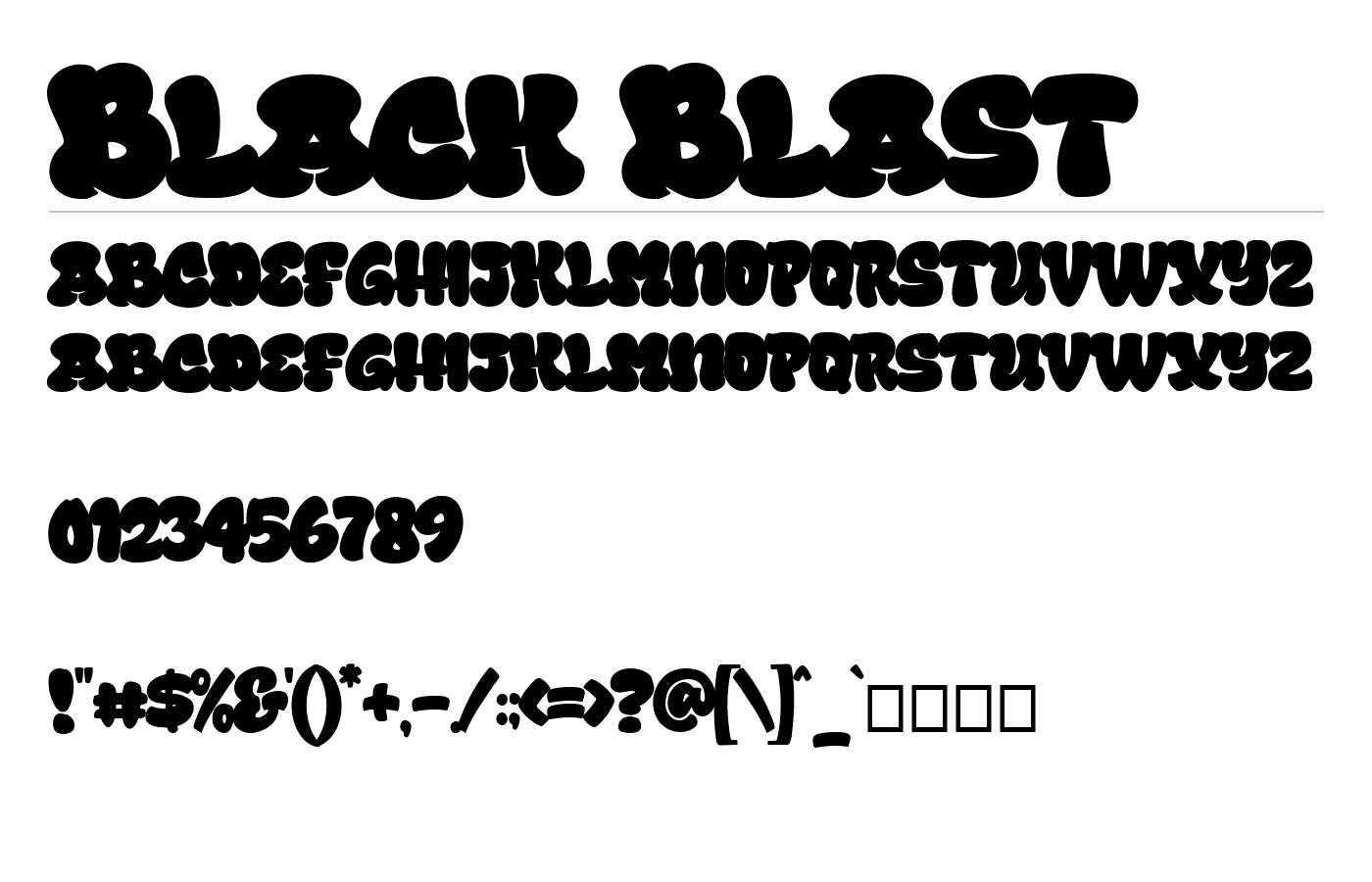
Black Blast is a bold, playful display font characterized by its heavy, rounded letterforms that create a chunky, impactful presence. Its thick, soft strokes and wide proportions give it a retro, fun vibe, making it ideal for eye-catching headlines, posters, and branding that aims to convey a lively and energetic personality. This font works best where bold visual statements are needed, adding a sense of creativity and warmth without sacrificing readability.
Black Blast Font
About Black Blast Font
| Font family | Black Blast Font |
| Designer | Bangkit tri Setiadi |